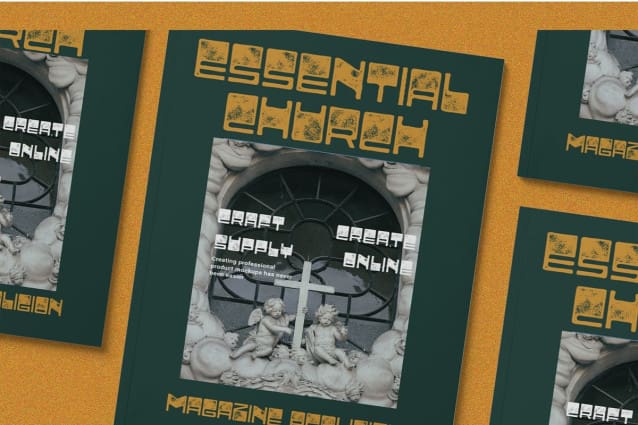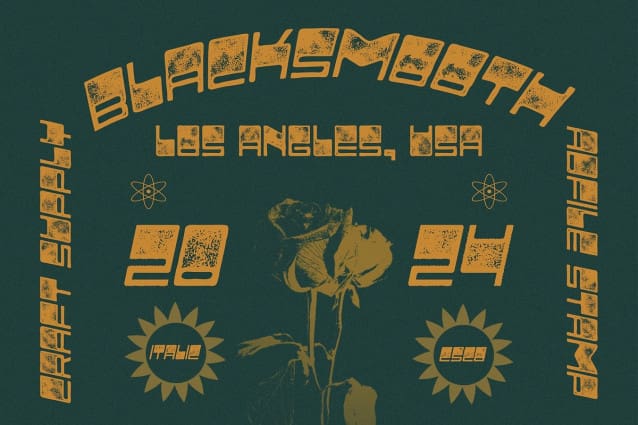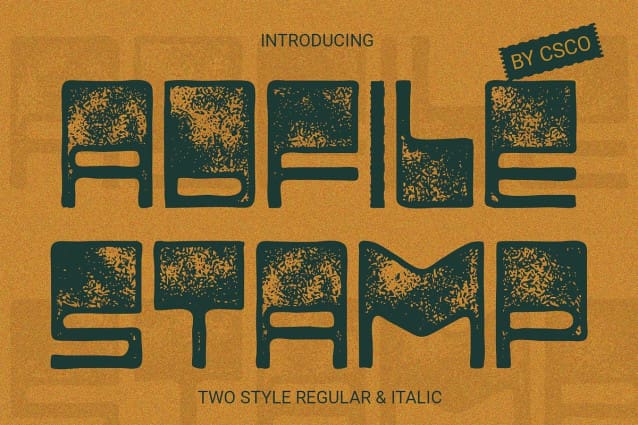
Adfile Stamp Font
Adfile Stamp Font: Retro Charm in Display Typography. Vintage-Inspired Design Adfile Stamp captures the essence of retro aesthetics with its nostalgic vibe and classic appeal. The font exudes a sense of timelessness reminiscent of bygone eras.
Authentic Drawn Stamp Effect With its drawn stamp effect, This font adds an authentic touch to any display design. Each character bears the unique imperfections and rough edges characteristic of hand-drawn typography.
Ideal for Vintage Display Tailored for vintage display needs, This font is the perfect choice for projects seeking a retro vibe. Whether it’s posters, packaging, or branding, this font brings a sense of nostalgia to any design.
Versatile Usage Despite its vintage charm, This font offers versatility in application. From digital graphics to printed materials, its rough and textured appearance adds character and depth to various design projects.
Modern Designs This font embodies the elegance of retro typography while offering modern functionality. Its drawn stamp effect and vintage-inspired design make it a standout choice for designers seeking to infuse their projects with no